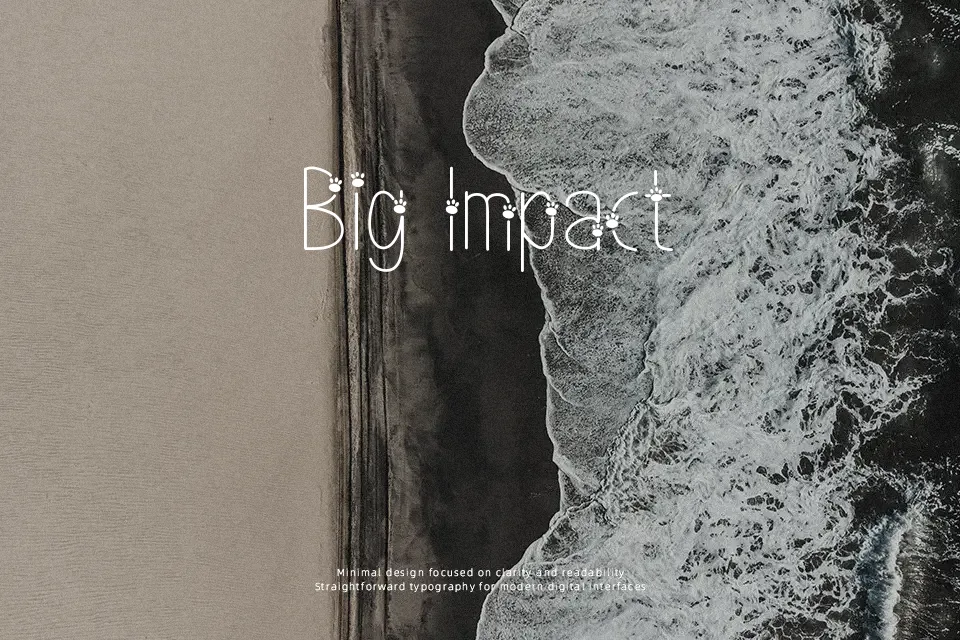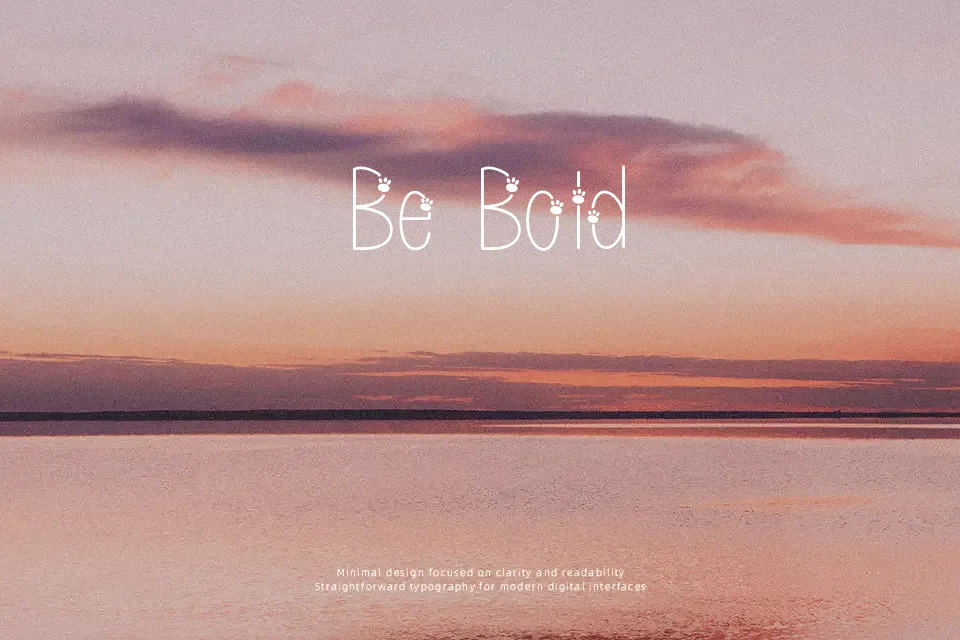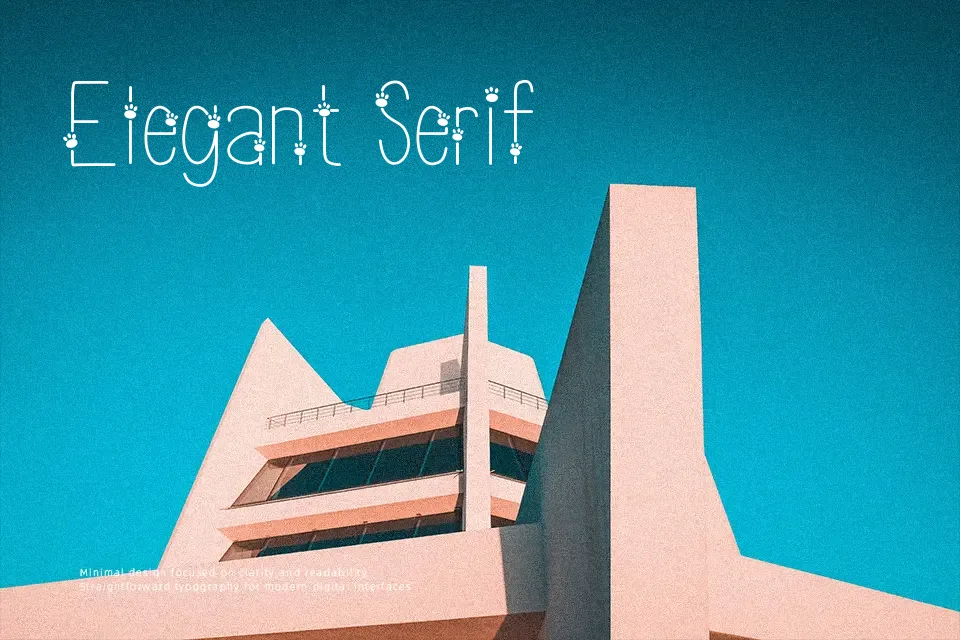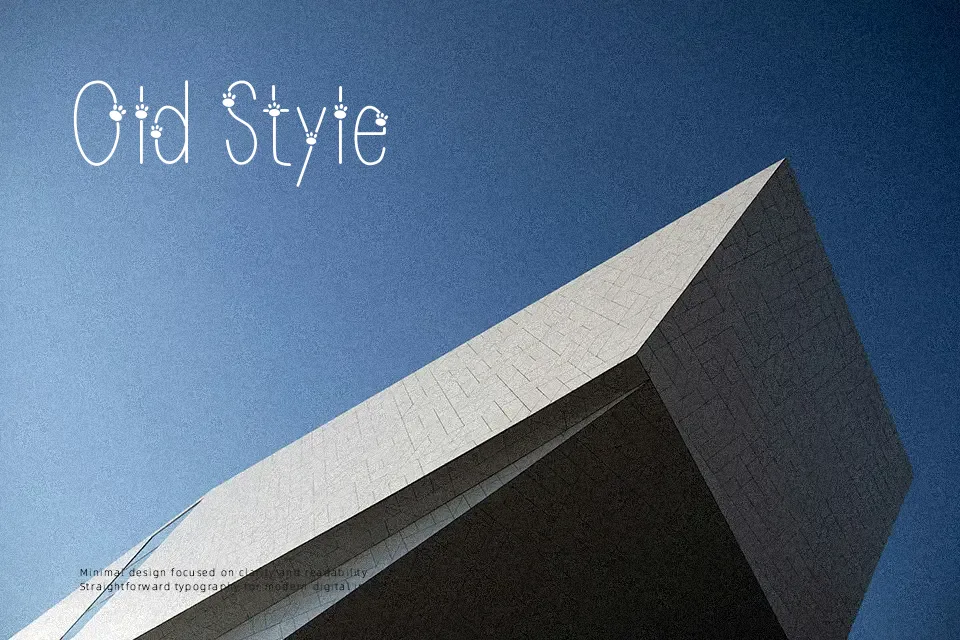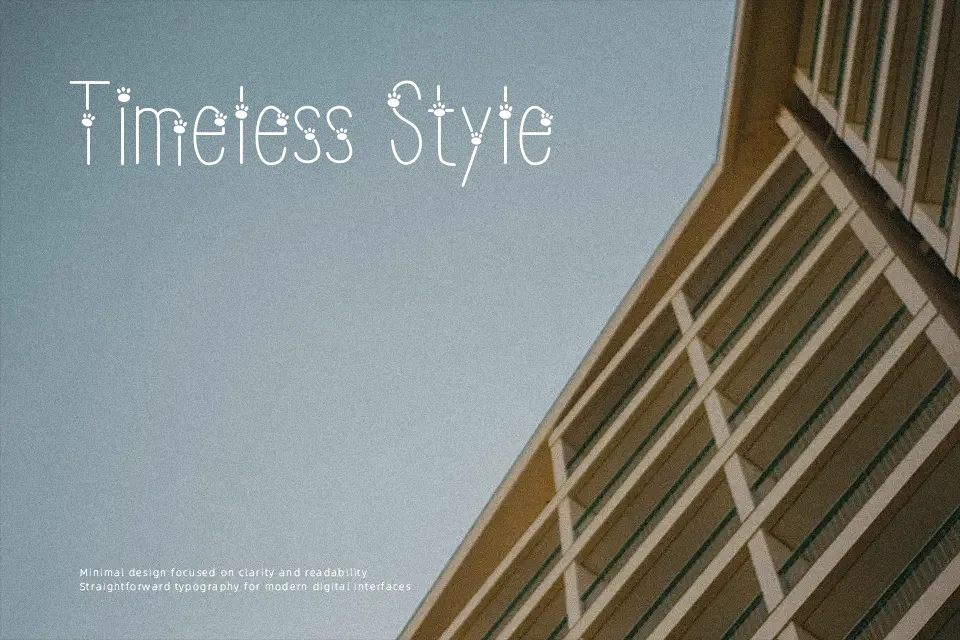
Thin Paws Font
Thin Paws Font pairs a light typographic structure with whimsical paw silhouettes embedded directly into each character. Uniform, unbracketed strokes establish consistent proportions across uppercase and lowercase glyphs, while generous horizontal spacing prevents individual outlines from colliding. The design works effectively in display settings such as children’s animal book covers, pet grooming parlor signage, and themed merchandise graphics. However, the delicate stroke thickness and integrated paw accents impair readability in body text and compact mobile interfaces. The typeface performs best when reserved for isolated headlines and spacious graphic layouts where the ornamental details have sufficient breathing room to remain legible.
Best For: pet boutique packaging, animal rescue event posters, children’s book titles, veterinary clinic signage
Not Ideal For: continuous paragraph text, mobile application interfaces, legal documentation, small caption labels
Perfect for headline, kids, and packaging, with a creative and decorative style.